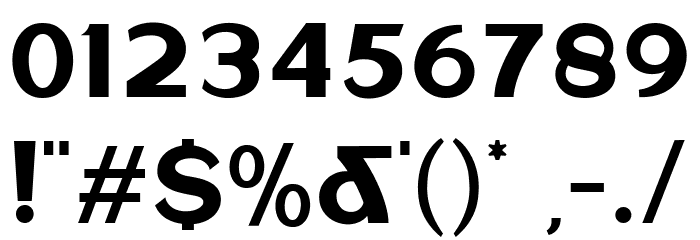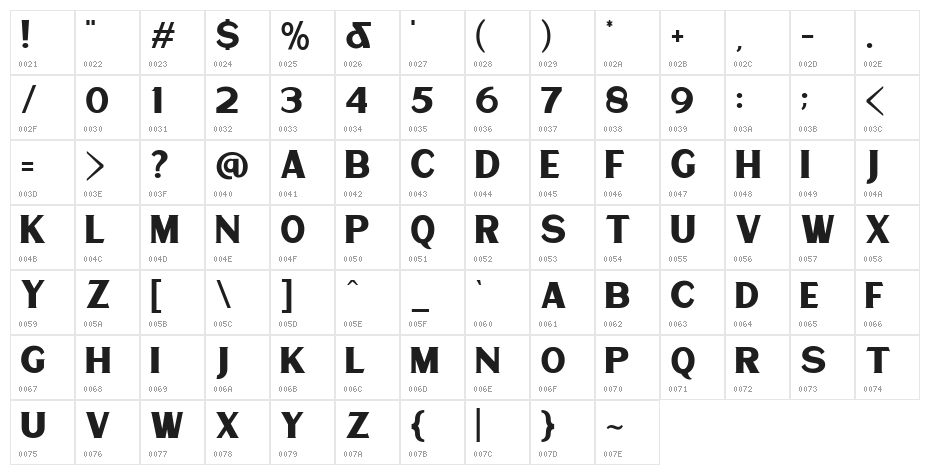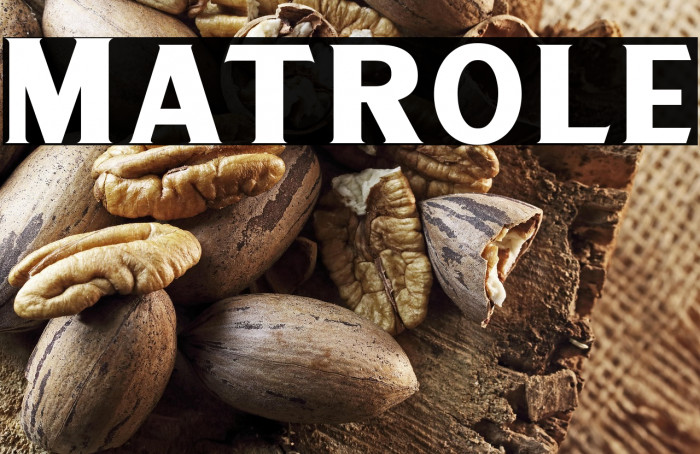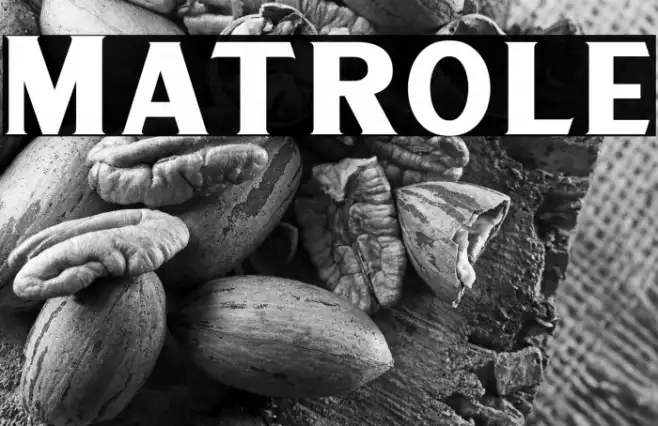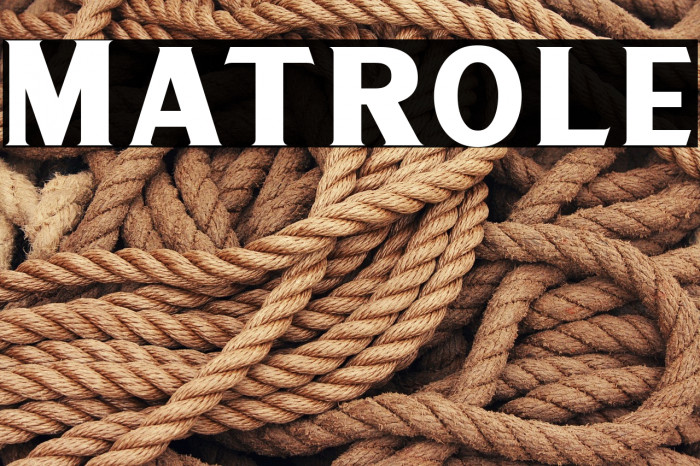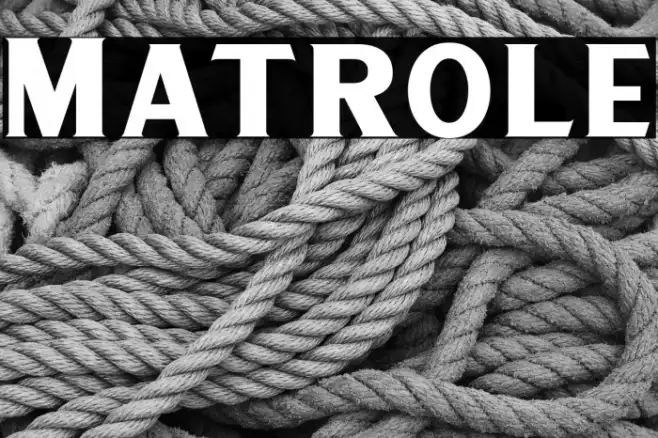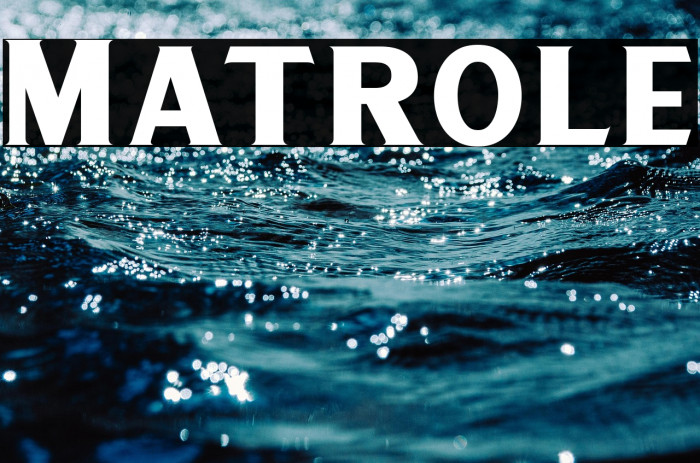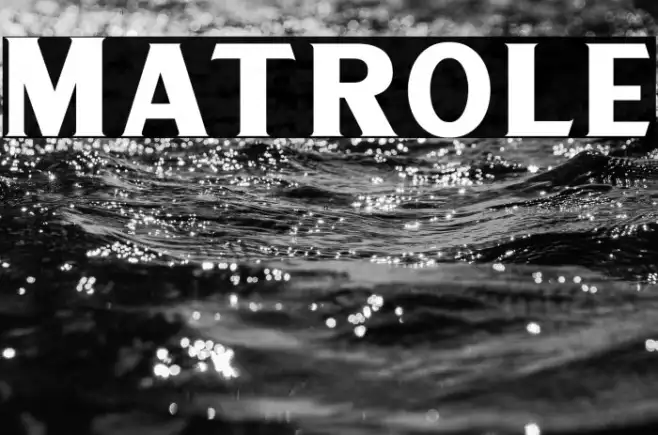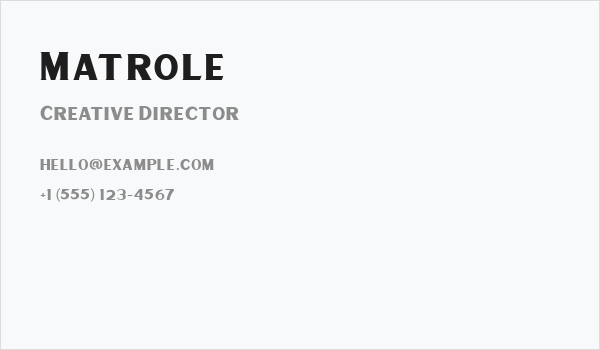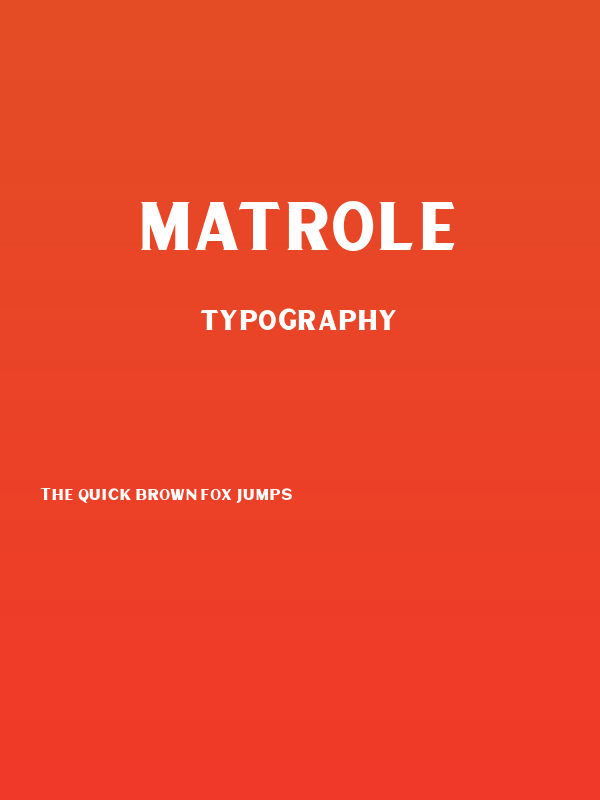
Matrole Font
Matrole Description
This font features bold, strong characters with a modern and impactful design. The uppercase letters are prominent and assertive, making them ideal for attention-grabbing headlines. The lowercase letters maintain a consistent style, ensuring readability while retaining a bold presence. The numerals are clear and robust, suitable for both digital and print media. Special characters are well-defined, adding versatility to the font's application. The overall design is clean and professional, making it suitable for a variety of uses.
| Use Case | Headlines, Logos, Advertising |
| Proposed Projects | Ideal for branding, advertising, headlines, posters, and digital media. |